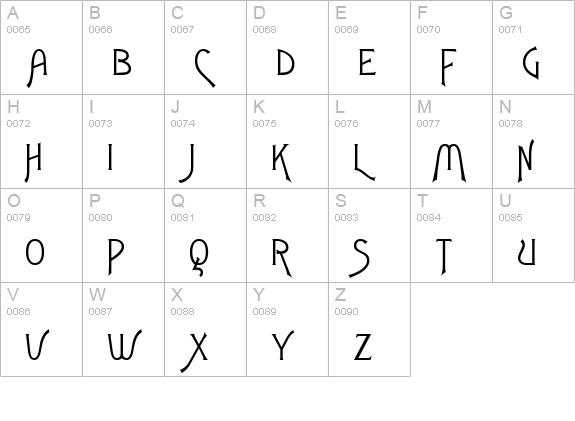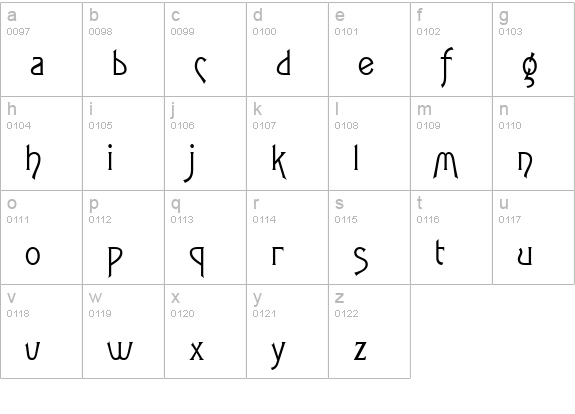
Fletch Normal is the standard, neutral variant in the Fletch typeface family \xE2\x80\x94 well suited to general body text, paragraphs, and standard typographic work.
Fletch Normal font is a versatile and modern typeface that exudes sophistication and style. With its clean lines and balanced letterforms, this font is perfect for a wide range of design projects, from branding to editorial design. The classic yet contemporary look of Fletch Normal makes it a great choice for both print and digital applications. What's even better is that Fletch Normal is available for free download at FontsMarket.com! Whether you're a designer looking to add a fresh new font to your collection or a business owner in need of a sleek and professional typeface, Fletch Normal is sure to impress. Don't miss out on this fantastic opportunity to enhance your designs with this high-quality font that won't cost you a penny. Download Fletch Normal today and elevate your projects with its timeless elegance.